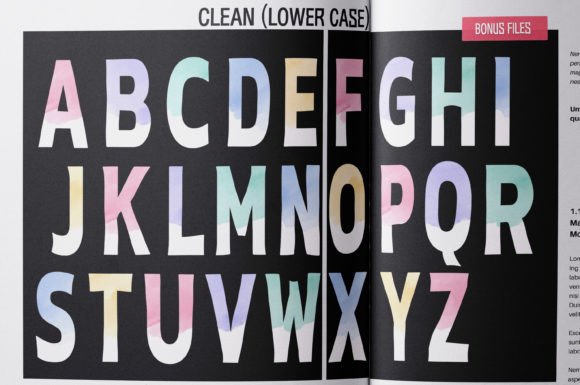
Watercolor Font
Watercolor is a colorful watercolor font style. It is the best choice for creating eye-catching postcards, books, t-shirts, and many more. Add it confidently to your projects, and you will love the results.